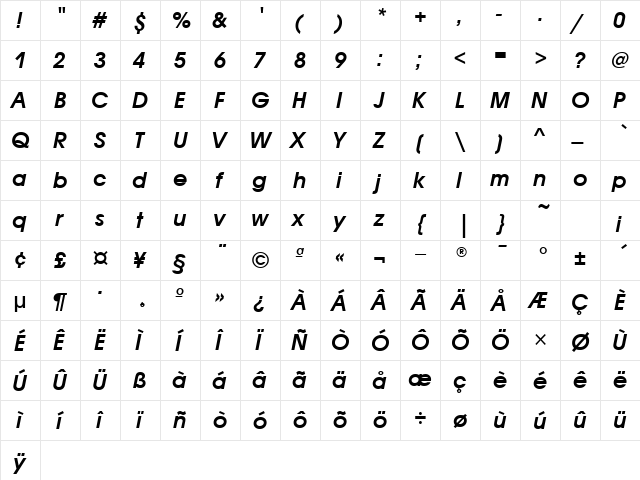
AvantGardeITCTT DemiOblique Font Preview
AvantGardeITCTT DemiOblique
AvantGardeITCTT DemiOblique Font Details
| Foundry | International Typeface Corporation |
| Designer | Herb Lubalin/Tom Carnase |
Design Context for AvantGardeITCTT Typeface
AvantGardeITCTT offers clean, dependable letterforms without strong stylistic allegiance, making it a practical choice for designers who need flexibility. The dynamic lean of this cut emphasises speed and emphasis in any layout.